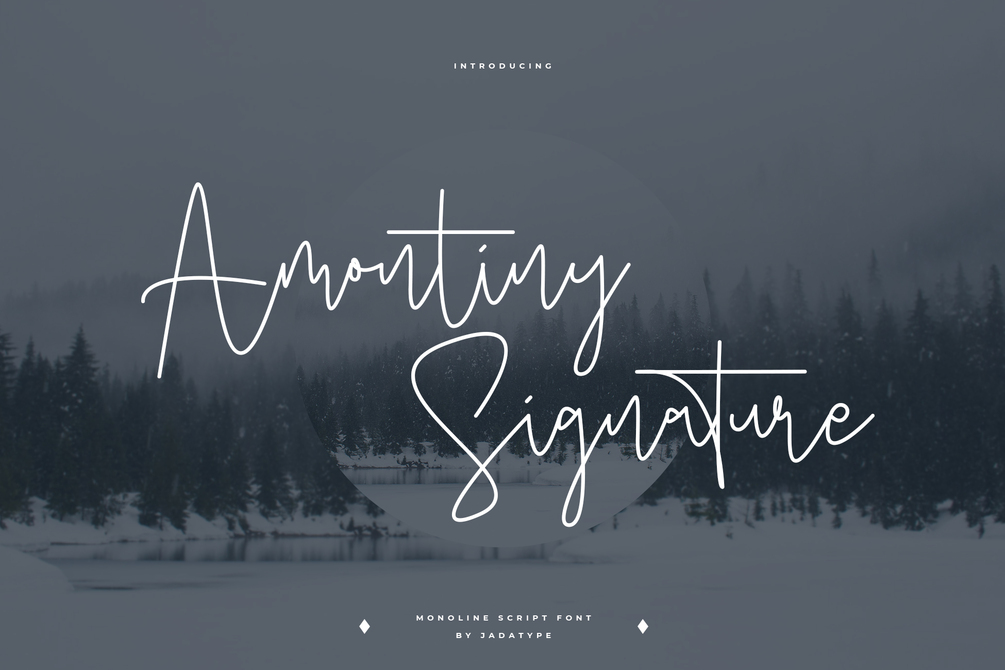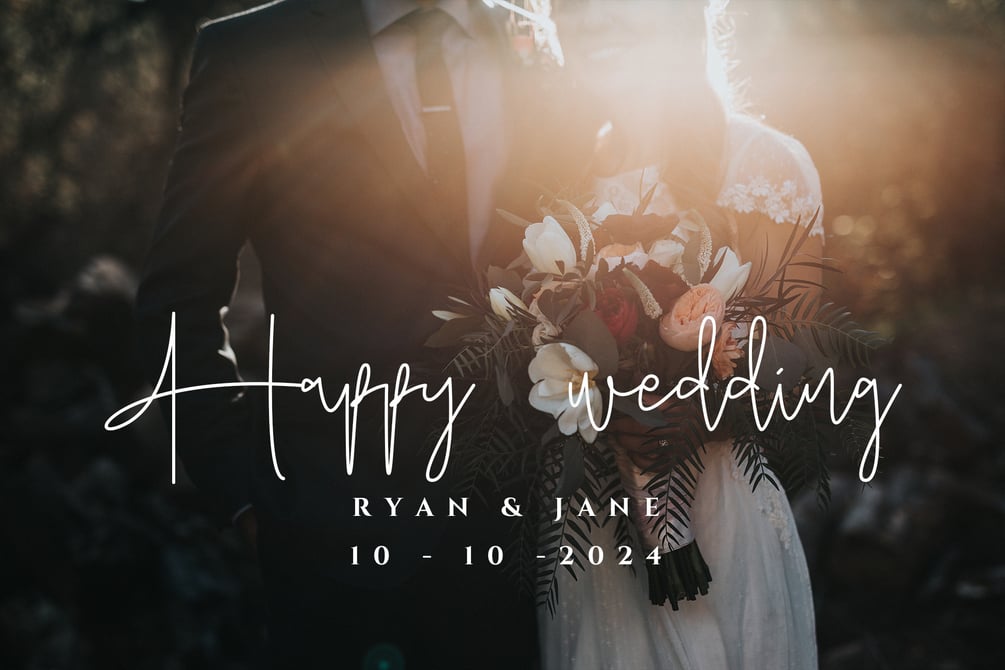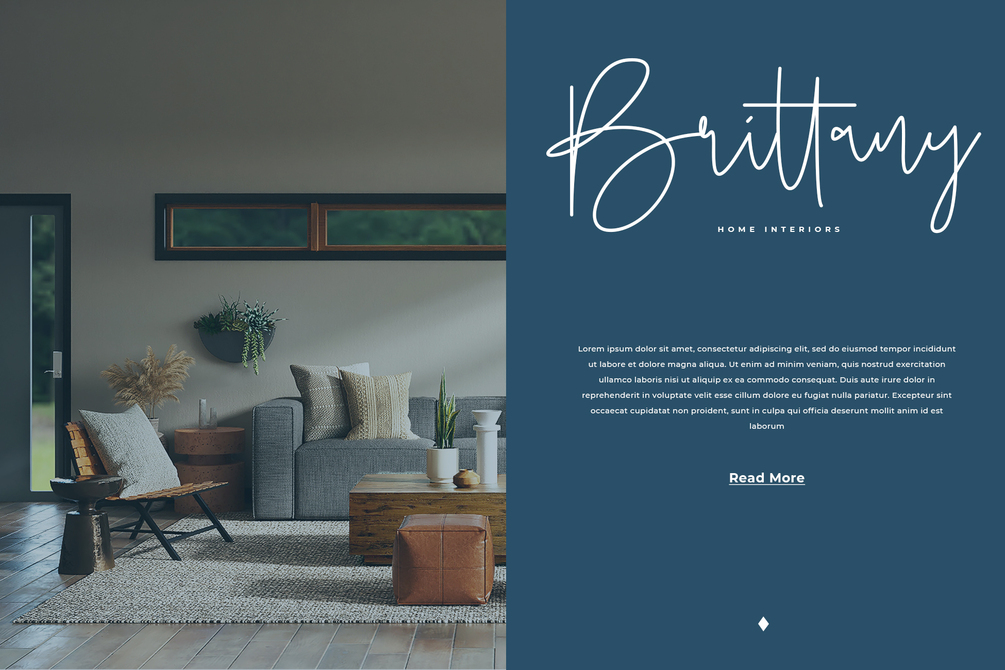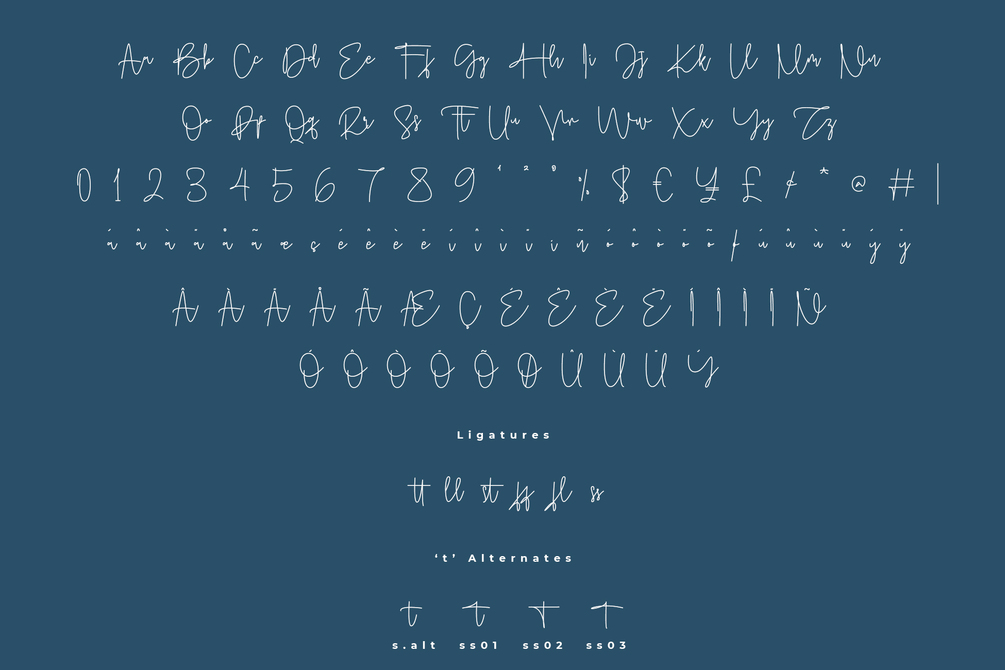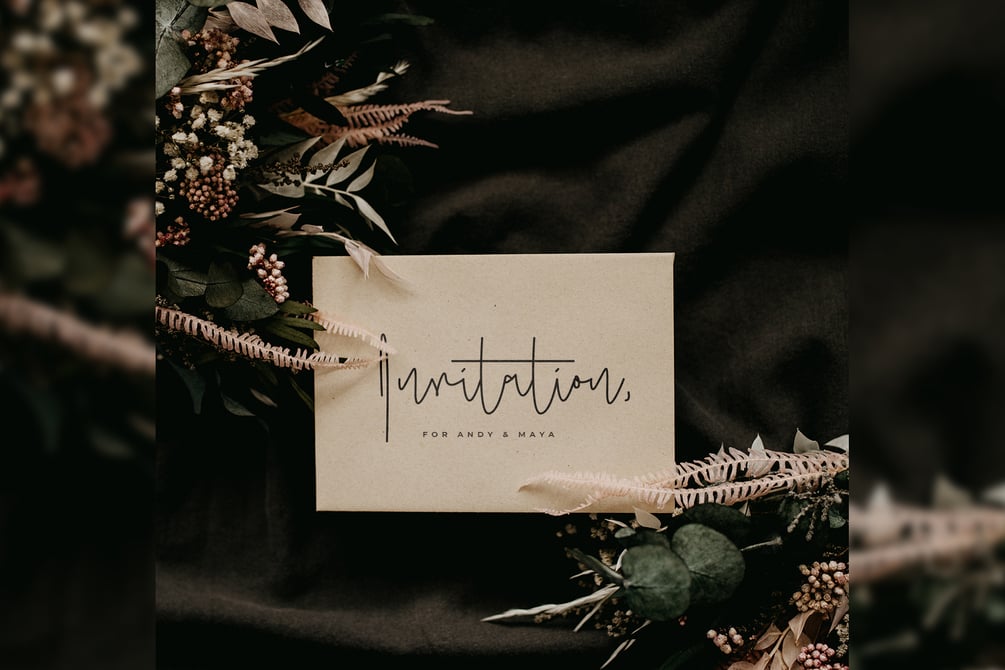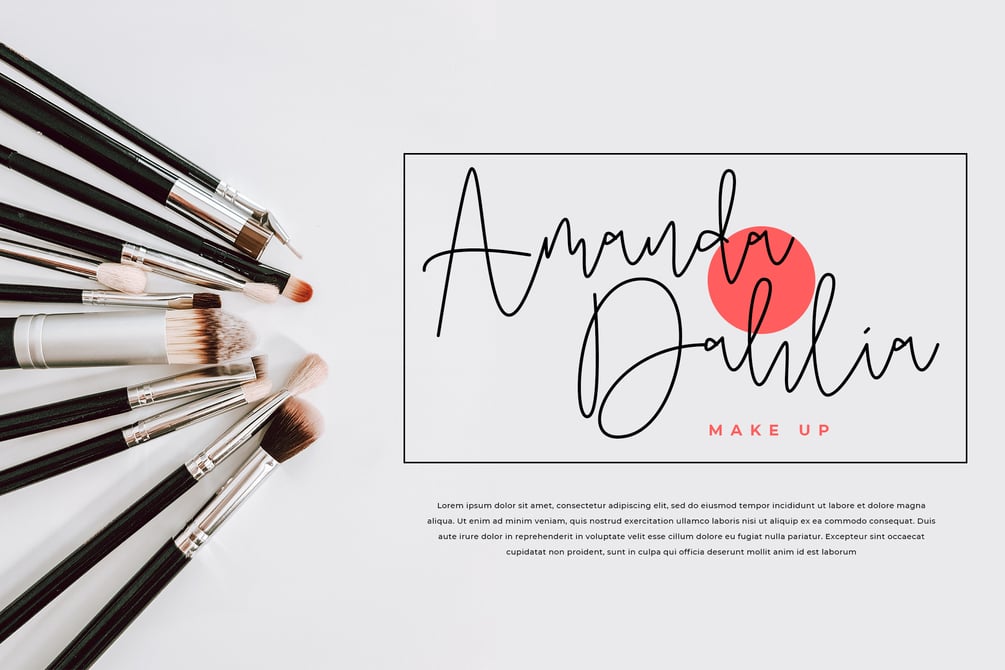
Amontiny Signature Font
Amontiny Signature is a font with a monoline style. suitable for social media, logotype, craft, advertisements, and so on. contains standard English letters, numbers, punctuation, and several accents that support multilingualism.